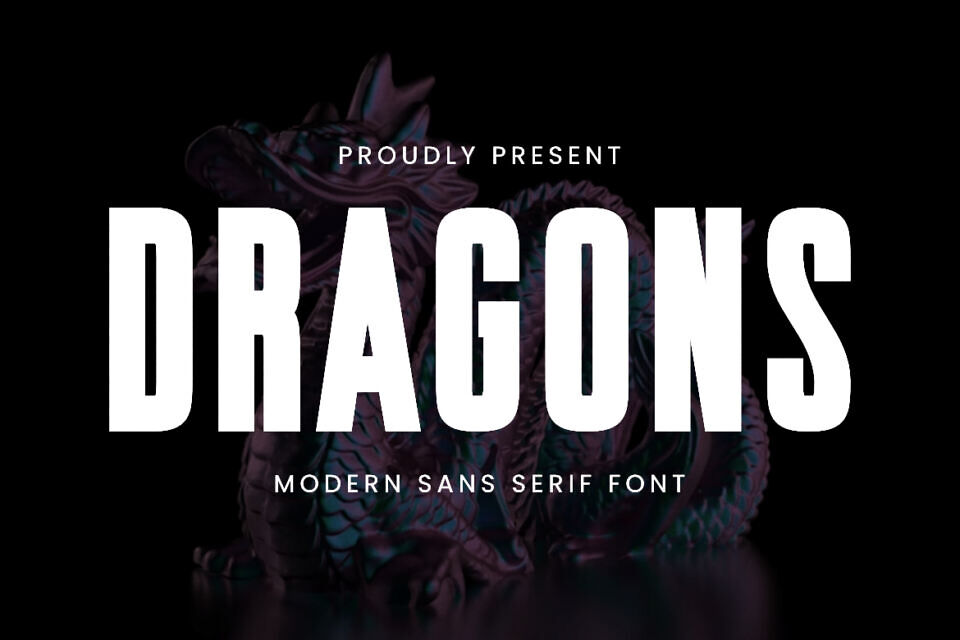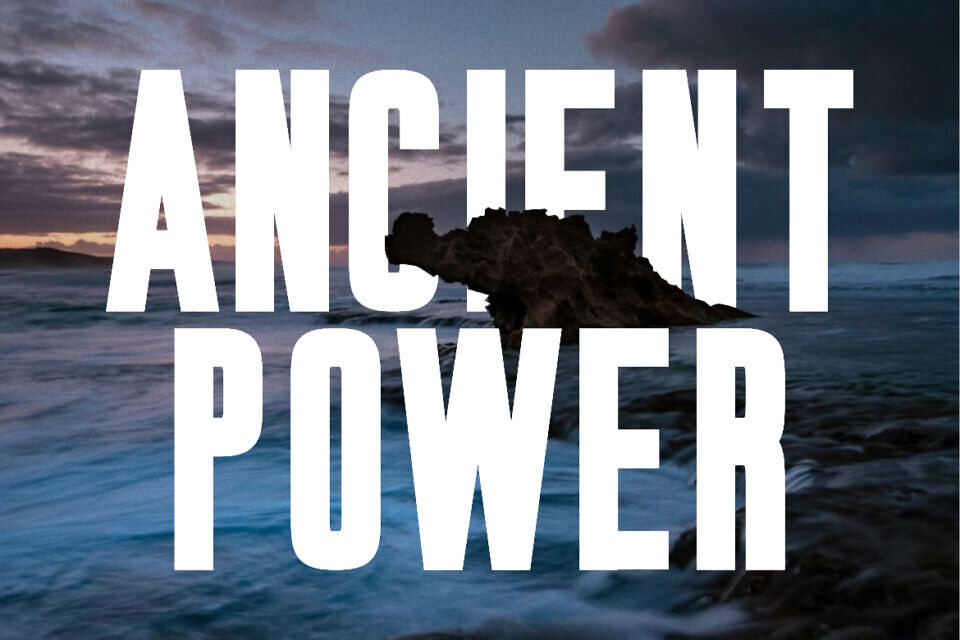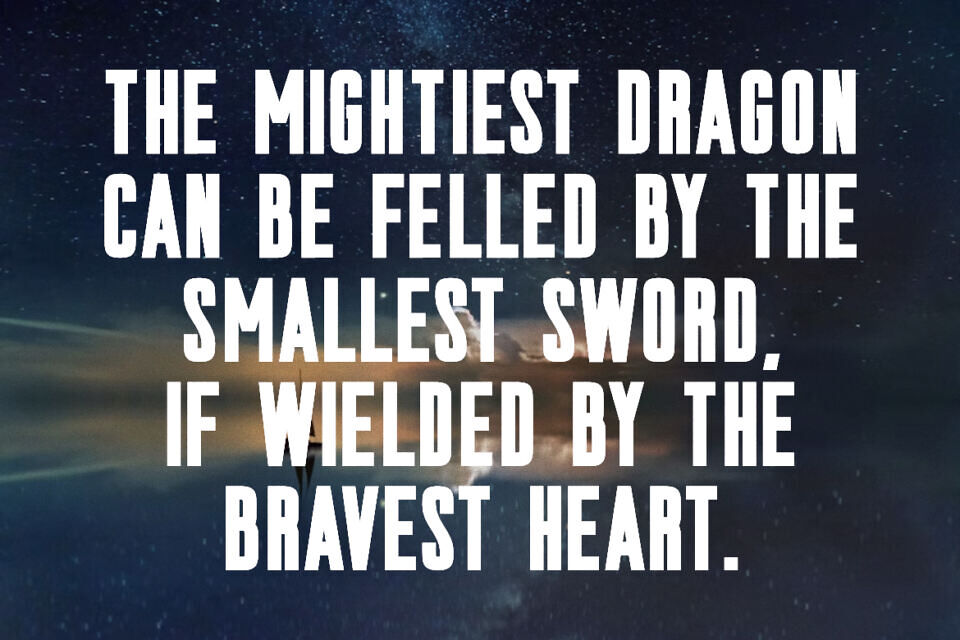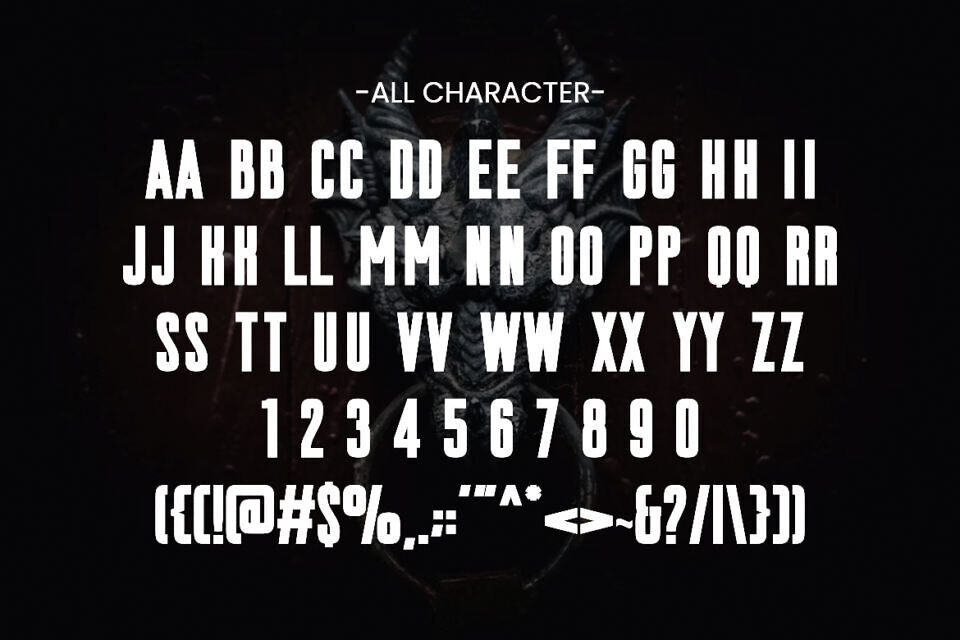
Dragons is a bold modern sans serif font with tall, clean letterforms—perfect for powerful and professional branding. Its strong structure and minimalist style make it ideal for logos, posters, presentations, website headers, and high-impact marketing visuals.
Whether you’re designing for a tech startup, corporate identity, or a creative agency, Dragons helps your design stand out with confidence.